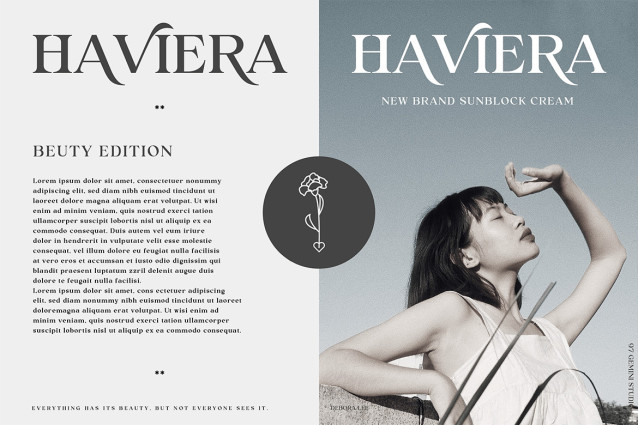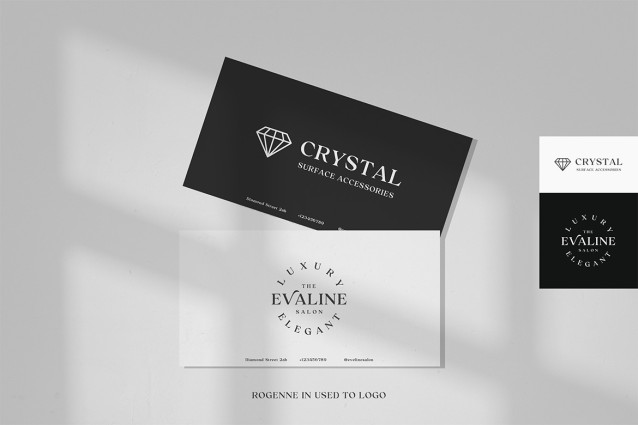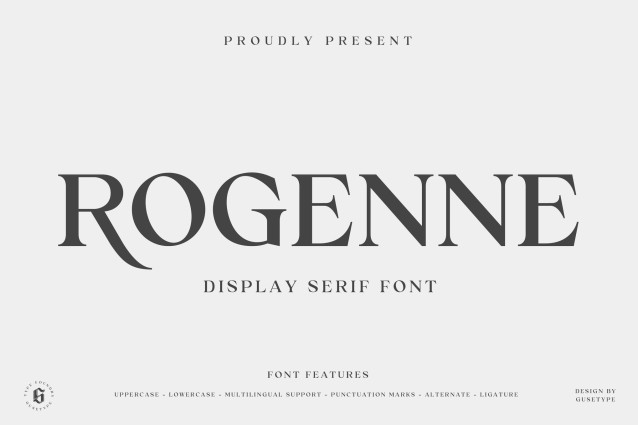
Rogenne Font
Rogenne Font is a display serif typeface. This serif font combines modern clarity with classic elegance, giving it a timeless beauty. Carefully crafted with clean lines and refined details, it offers a luxurious aesthetic that enhances branding, headlines, logos, posters, invitations, and many other elements of your project.